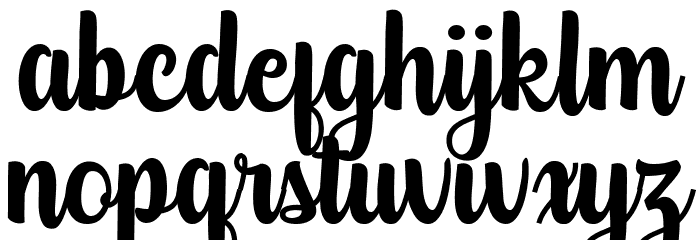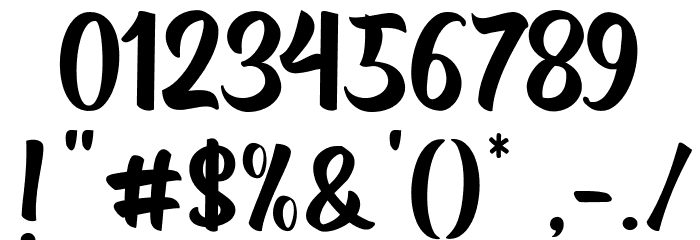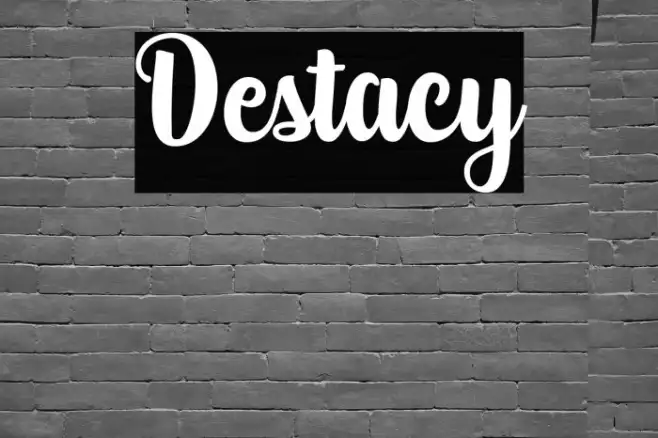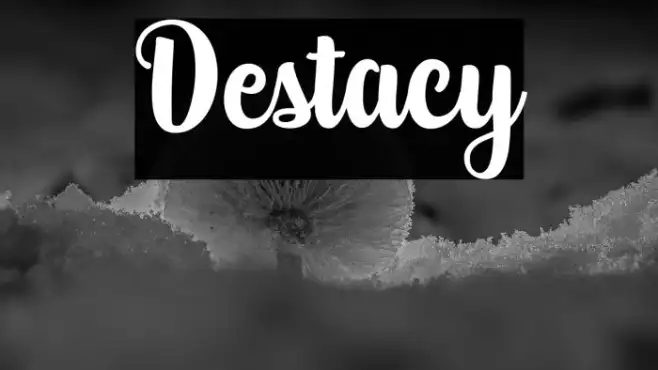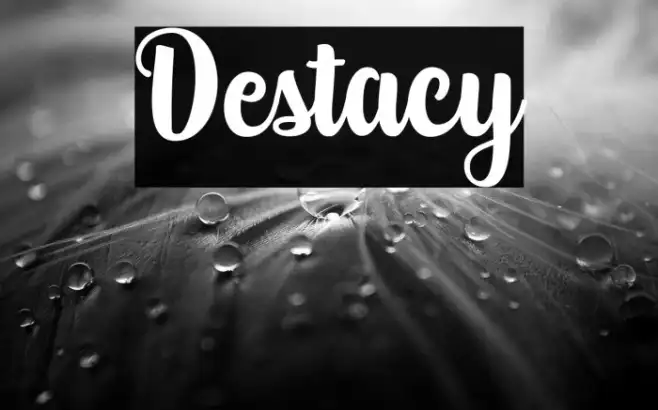
Destacy Font
This font exhibits a playful and energetic script style, characterized by its bold and flowing letterforms. The uppercase letters are tall and slightly condensed, with a whimsical flair that adds a sense of movement. The lowercase letters maintain a consistent rhythm, featuring smooth curves and rounded edges that enhance readability. The numbers are bold and clear, matching the overall style of the alphabet. Special characters are creatively integrated, maintaining the font's lively aesthetic. The font's thick strokes and high contrast make it stand out, ideal for attention-grabbing designs.
A bold, playful script font with high contrast and flowing letterforms.
- Proposed Projects: Perfect for branding, packaging, invitations, and social media graphics where a fun and dynamic look is desired.